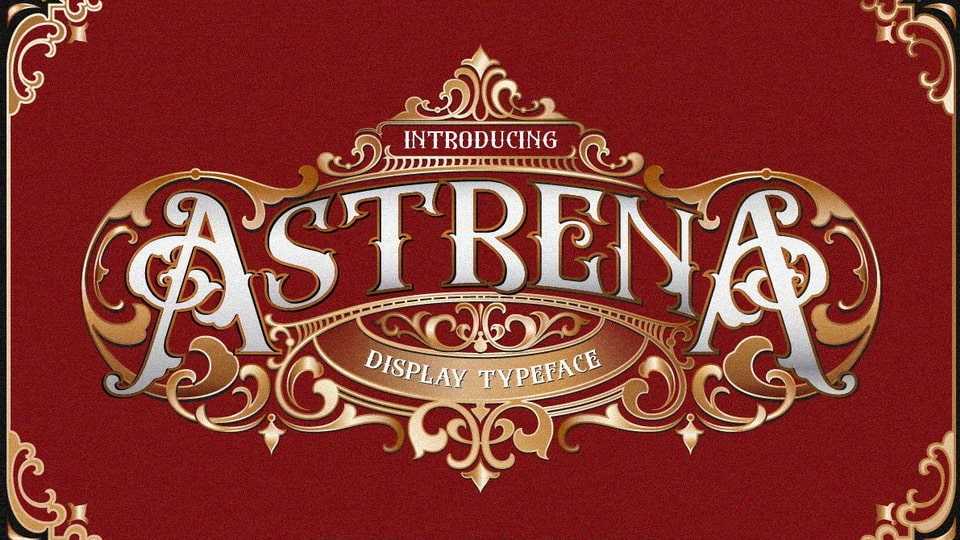
Download Astrena font, a decorative Victorian-style display typeface inspired by vintage typography. Astrena will be a perfect choice of your classic visual direction for vintage sign, labels, branding, logotype and old fashioned graphics.
Designer: Pentagonistudio